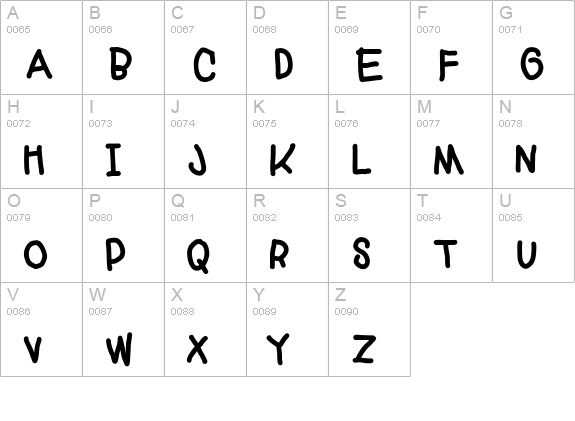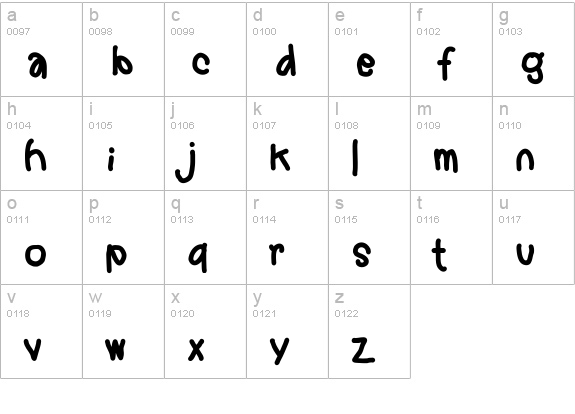
Markera Font Details
Markera is a free for personal use font in the Script > Graffiti category. It has been downloaded 8 times and is available for Windows, Mac and Linux.
Introducing Markera, a bold and charismatic font that exudes confidence and creativity. With its clean lines and contemporary design, Markera is perfect for a wide range of projects, from branding and logos to headlines and social media graphics. This versatile typeface truly stands out with its unique combination of sharp edges and smooth curves, creating a visually striking impact. But what sets Markera apart is not just its stunning aesthetics. It also comes with the added bonus of being free! Yes, you read that right – Markera is freely available to download at FontsMarket.com. This means that you can elevate your designs without breaking the bank. Whether you're a professional designer looking to add a touch of sophistication to your work or a passionate hobbyist exploring the world of typography, Markera is the perfect choice. Designed with utmost attention to detail, Markera ensures legibility and readability across various platforms and screen sizes. Its wide range of weights and styles allows for endless creative possibilities, giving you the flexibility to experiment and create truly unique designs. From bold headlines to elegant body text, Markera effortlessly adapts to your needs. So why wait? Unleash your creativity and make a lasting impression with Markera. Download this stunning font for free at FontsMarket.com and let your designs speak volumes. With Markera, the possibilities are endless.